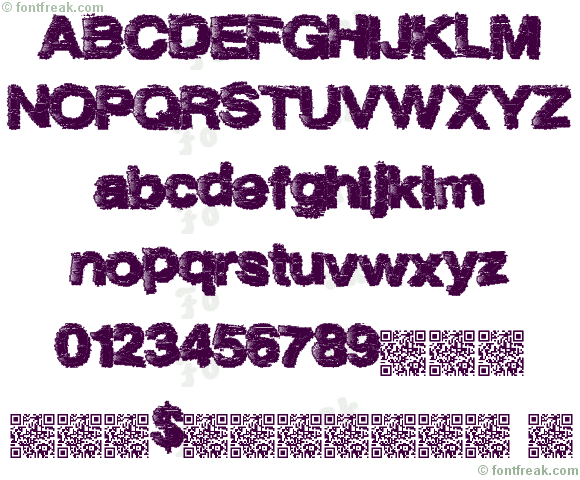
SpaceFlight
SpaceFlight, designed by Xerographer Fonts, is a striking display typeface that captures the essence of adventure and exploration. With its unique, slightly rugged appearance, this font embodies the spirit of outer space, making it a fantastic choice for projects that require a sense of dynamism and creativity. The visual characteristics of the SpaceFlight font include a medium stroke weight and moderate contrast, which lend it a bold yet approachable quality. The letterforms feature a distinctive, textured finish that adds depth and character, while the generous spacing between characters ensures readability and impact.
This font is particularly well-suited for a variety of creative applications. It shines in movie posters, where its adventurous vibe can draw attention and evoke excitement about upcoming films. Additionally, SpaceFlight makes an excellent choice for branding in the tech and aerospace industries, effectively communicating innovation and forward-thinking. Graphic designers can also utilize this font for eye-catching promotional materials, while small business owners might find it perfect for signage that stands out in a crowded marketplace. Content creators looking to add flair to their digital projects will appreciate its unique aesthetic for social media graphics or website headers.
What sets SpaceFlight apart from other fonts is its ability to evoke a sense of wonder while remaining highly functional. Its unique style, combined with its versatility, makes it a must-have for anyone looking to enhance their design work with a touch of cosmic flair.